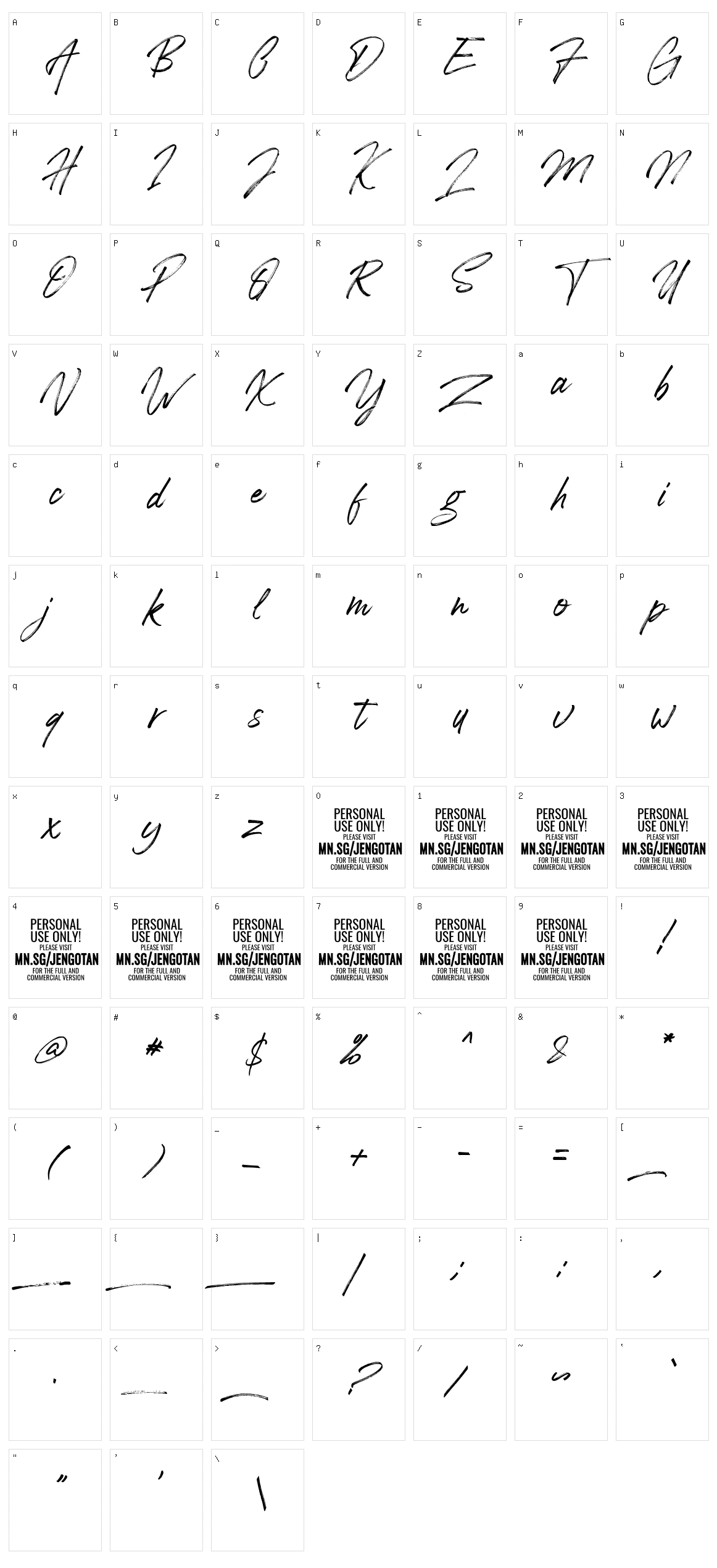
Jengotan is a rapid script, hand-painted with a brush to give a great contrast between thick and thin curves.
It is drawn, scanned and vectorized from paper to screen, with the intent of being an authentic brush typeface, leaving the texture and imperfections the way they are, resulting in a vivid style for projects that requires dynamic handwriting.
Use [ ] { } < > anywhere in a word to create a swash.
Example: Jeng{otan
In addition to the Jengotan font, also included is the Upright variation.
The font contains all characters you'll ever need, including all punctuation and numbers.